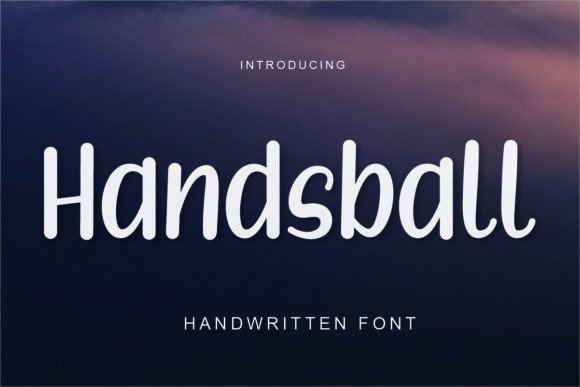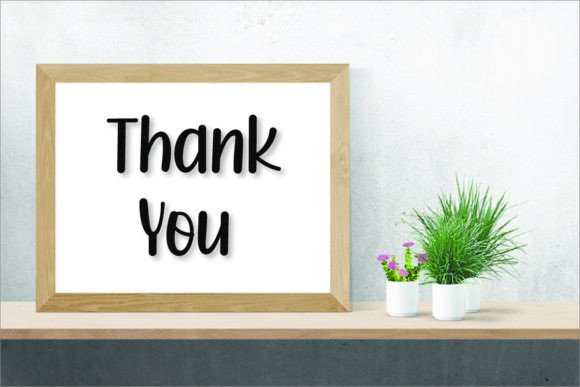
The Perfect Brushstroke: Introducing Handsball Font
Have you ever been struck by the perfect brushstroke of a handwritten font? For designers, it’s a moment of pure magic – the kind that makes you want to create something beautiful all over again. You’re sipping your morning coffee, scrolling through design inspiration, and suddenly, you stumble upon the perfect font to match your vision.
Meet Handsball Font, the lovely and timeless handwritten font that’s perfect for creating eye-catching logos, branding, and quotes. Every letter has a unique and beautiful touch, making your design come alive. Whether you’re a seasoned designer or just starting out, Handsball Font is a valuable tool in your creative arsenal. Its versatility and charm make it a go-to choice for designers looking to add a personal touch to their work.
Handsball Font Key Features
- Font Family: Handsball, Handsball Bold, Handsball Italic, Handsball Bold Italic
- Unique Characteristic: Handsball features a unique, hand-drawn design with a bold, energetic feel, making it ideal for sports and action-themed applications
Handsball Font Review
Handsball Font is a unique, hand-drawn font that’s perfect for adding a touch of personality to your designs. ✨ The font’s quirky, irregular shapes and lines give it a playful, organic feel that’s sure to stand out.
One of the things I love about Handsball Font is its versatility. ✨ It works well for both digital and print designs, and can be used for a wide range of projects, from logos and branding to web and social media graphics.
Here are a few things that work well with Handsball Font:
- ✨ Unique, hand-drawn feel that adds personality to designs
- ✨ Versatile and can be used for a wide range of projects
- ✨ Works well for both digital and print designs
- ⚠️ May not be suitable for projects that require a more formal or traditional look
- ⚠️ Can be difficult to read at small font sizes
Overall, I think Handsball Font is a great choice for designers who want to add a touch of whimsy and personality to their designs. With its unique feel and versatility, it’s a great option for a wide range of projects.
For the most effective use of Handsball Font, use it for titles, headings, and emphasis. It’s ideal for creating a bold and modern look in graphic design, posters, and digital marketing materials. Handsball Font works well with clean and minimalist designs, making it perfect for branding and logos.
Alternatives to Handsball Font
Compared to Handsball Font, Rockwell Font is more traditional and less playful. While Handsball Font is a sans-serif font with a modern feel, Rockwell Font is a serif font with a classic feel.
Compared to Handsball Font, Open Sans Font is more modern and clean. While Handsball Font has a bold and playful feel, Open Sans Font is more minimalist and neutral.
Compared to Handsball Font, Montserrat Font is more modern and edgy. While Handsball Font has a bold and playful feel, Montserrat Font is more industrial and gritty.
Merriweather Font is a serif font that is highly legible and elegant. It is suitable for formal and traditional documents, such as wedding invitations, business cards, and luxury brands.
Compared to Handsball Font, Merriweather Font is more traditional and elegant. While Handsball Font is a sans-serif font with a modern feel, Merriweather Font is a serif font with a classic feel.